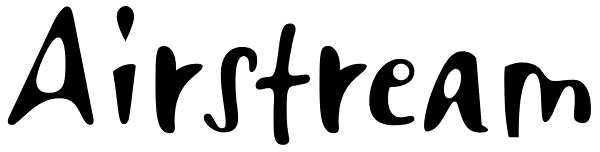
ITC Airstream
Timothy Donaldson creates letterforms anywhere using anything: he is just as happy making letters with pens and brushes, many of which he makes himself. Applying his personal commitment to the beauty of hand-drawn letterforms to modern type design...